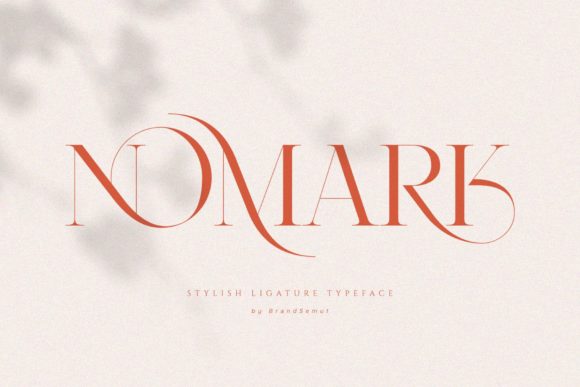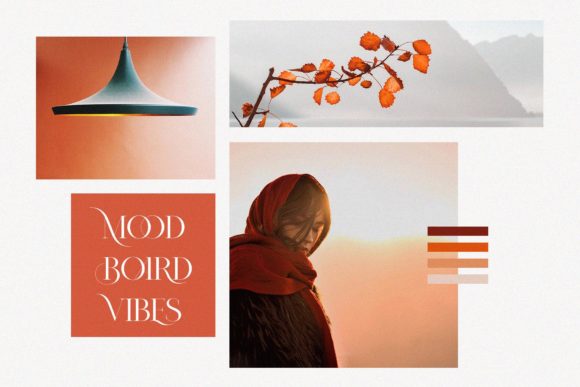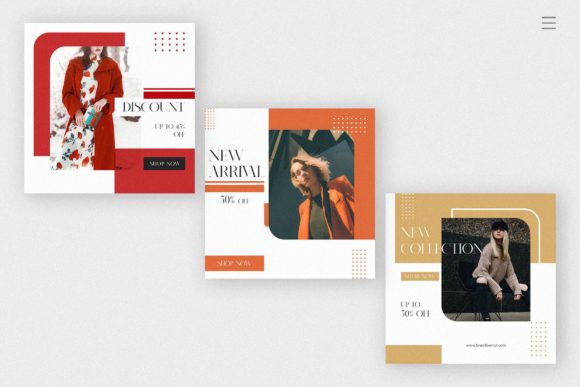
Nomark Font
About the Nomark Font
Explore the possibilities with Nomark Font, a font that offers both beauty and functionality. Nomark is a magical serif font carefully created with a touch of elegance. This fantastic font is best suited for headlines of all sizes, as well as for blocks of text that have both maximum and minimum variations. Whether it’s for web, print, moving images or anything else – Nomark will look spectacular.
Nomark’s elegant serif design excels in headlines, logos, and short-form text applications like packaging or posters. Its refined character lends itself well to branding projects conveying sophistication and trustworthiness. However, its intricate details make it less suitable for body text or UI elements requiring high readability at smaller sizes. Avoid using Nomark for long paragraphs or dense blocks of information.
Pairing Nomark effectively requires careful consideration. A clean, geometric sans-serif like Montserrat or Open Sans provides a strong contrast and enhances readability when used for supporting text. For a more traditional feel, consider pairing it with a complementary serif like Garamond or Didot, but be mindful of potential visual competition.
Nomark projects a personality of refined elegance and subtle boldness. Brands seeking to communicate a sense of luxury, heritage, or timeless quality will find it a strong asset. Avoid using it for projects requiring a playful or informal tone.
Nomark Font Usage Examples
Nomark Font Example